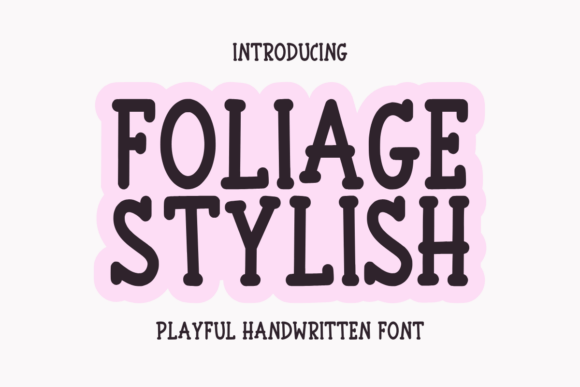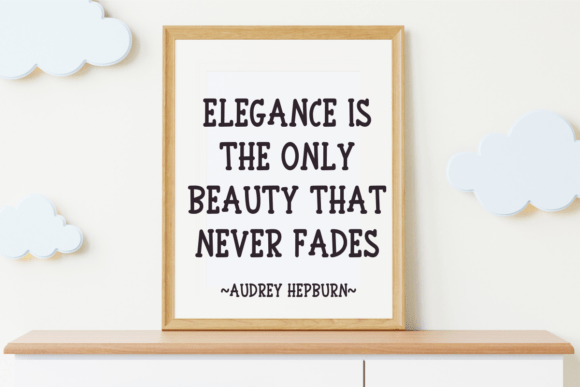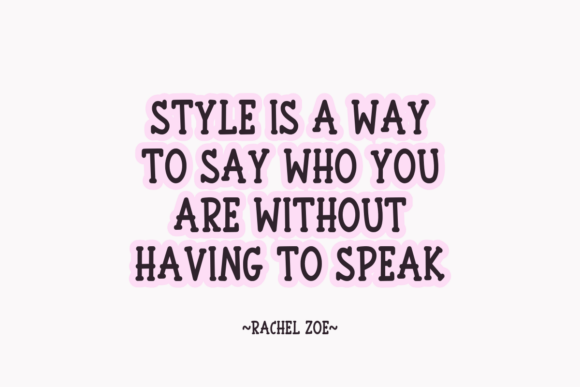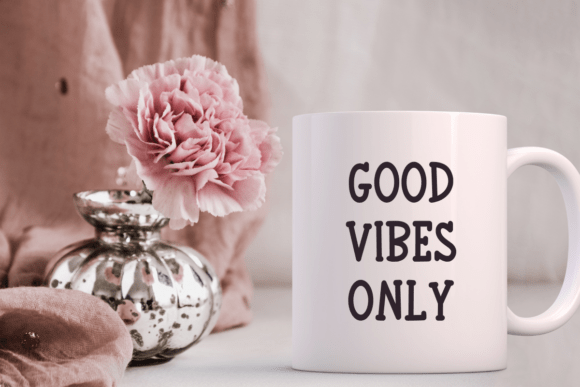
Foliage Stylish Font
About the Foliage Stylish Font
Experience the unique personality of Foliage Stylish Font, a font designed for impact. Foliage Stylish is a playful handwritten font that’s perfect for crafts, planners, KDP, stickers, greeting cards, and more. With its cute and friendly style, it works great for Cricut, sublimation, and creative DIY projects. Ideal for crafters, designers, and makers!
Foliage Stylish’s friendly, informal style shines in headlines, short text blocks on packaging, and social media graphics. It’s also a great choice for branding projects targeting a young, playful audience or crafting businesses. However, its handwritten nature makes it unsuitable for body text or UI elements requiring high readability.
For optimal visual balance, pair Foliage Stylish with a clean sans-serif like Open Sans for body copy or a more geometric sans-serif like Montserrat for a modern feel. A simple serif like Lora could add a touch of sophistication, while a playful script font might enhance its whimsical energy, depending on the desired outcome.
The overall personality of Foliage Stylish is undeniably cheerful and approachable. Its informal aesthetic makes it ideal for conveying a sense of warmth and approachability, but it lacks the sophistication for projects requiring a more serious or formal tone.
Foliage Stylish Font Usage Examples
Foliage Stylish Font Example